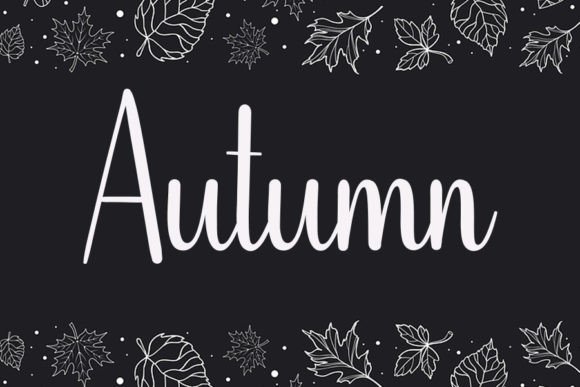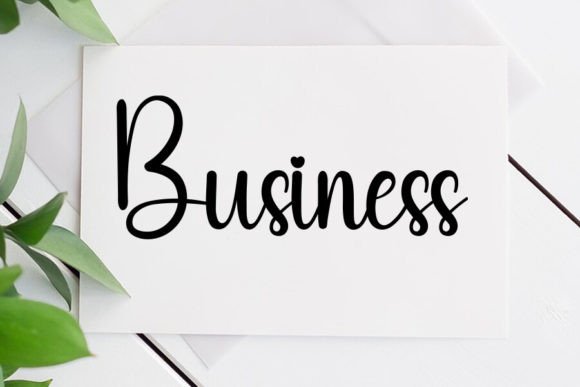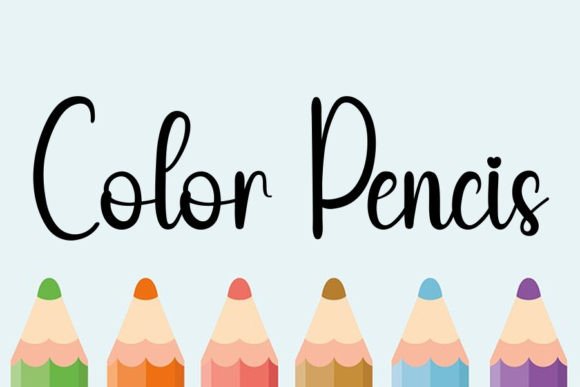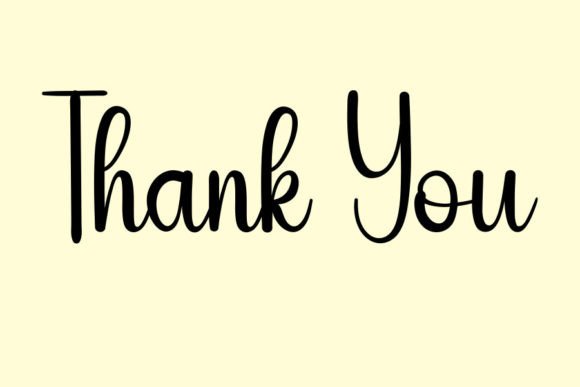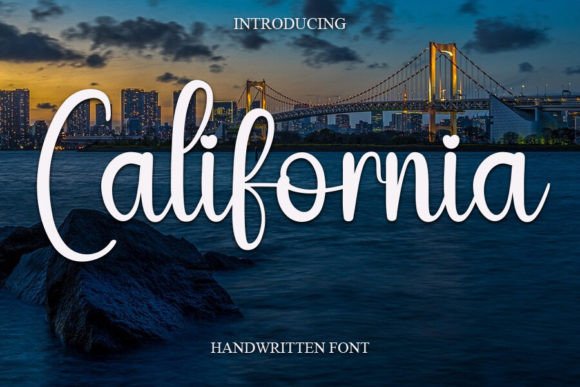
The Ultimate Guide to California Font: Elevate Your Designs with Elegance
I’ll never forget the time I was working on a wedding invitation project, and my client specifically asked for a font that exuded elegance and sophistication. I scoured the internet, tried out countless fonts, but nothing seemed to fit the bill. That was until I stumbled upon California Font. ✨ It was love at first sight! The perfect blend of modernity and classic calligraphy, California Font instantly elevated my design and impressed my client. In this article, I’ll share with you why I’m obsessed with California Font, its features, and how to make the most of it in your designs.
An Honest Review of California Font
- ✨ Trendy yet timeless: California Font strikes the perfect balance between modernity and classic elegance.
- ✅ Impeccable form: The font’s clean lines, subtle curves, and precise lettering make it a joy to work with.
- 💫 Versatile: California Font can be used for a wide range of design projects, from wedding invitations to branding and advertising.
- 👍 Highly legible: Even at smaller font sizes, California Font remains clear and easy to read.
While California Font is an exceptional font, there are a few minor quirks to be aware of: 🤔
A Practical Guide to Using California Font
The Backstory of California Font
California Font was designed by a team of typographers who aimed to create a font that embodied the spirit of California: modern, trendy, and effortlessly cool. Inspired by timeless classic calligraphy, they crafted a font that exudes elegance and sophistication. 💫 While the exact details of the font’s creation are unclear, it’s evident that the designers poured their hearts into creating a truly exceptional typeface.
| Author | cans studio |
Q: What is California Font?
A: California Font is a trendy handwritten font with a contemporary atmosphere and impeccable form, inspired by timeless classic calligraphy.
Q: What design projects is California Font suitable for?
A: California Font is versatile and can be used for a wide range of design projects, including wedding invitations, branding, advertising, and more.
Q: Does California Font support OpenType features?
A: Yes, California Font supports OpenType features, including stylistic alternates, glyphs, and other advanced features.